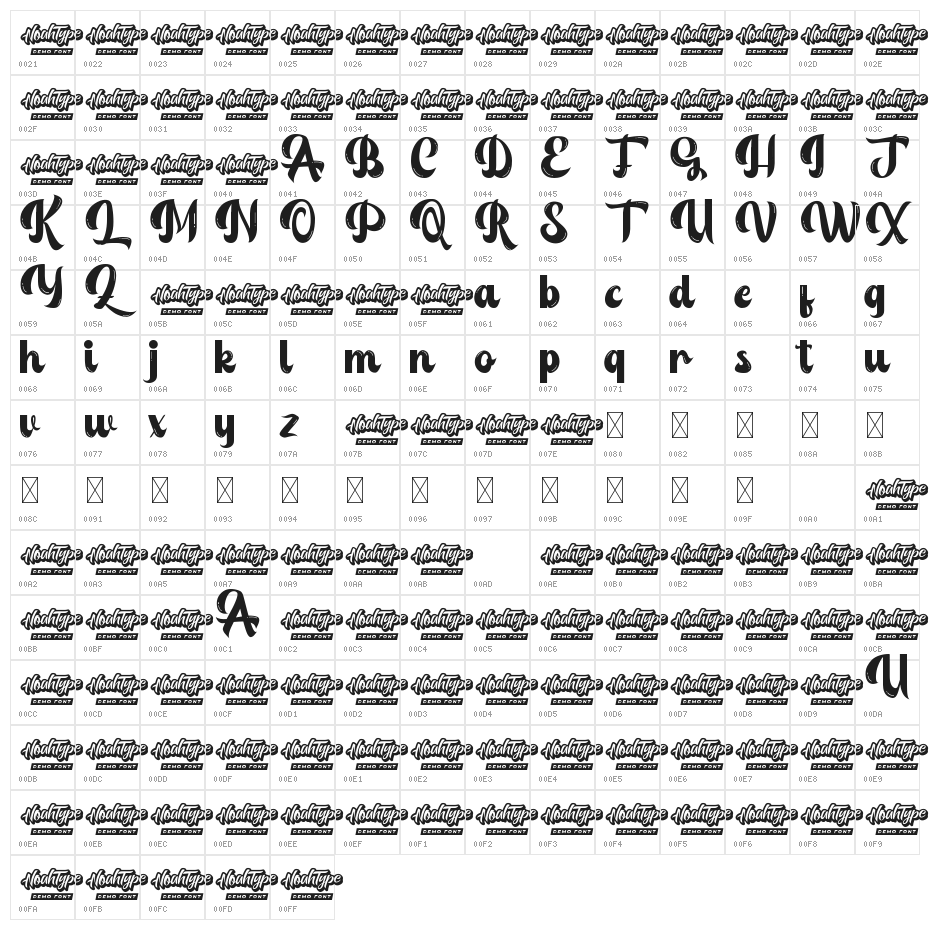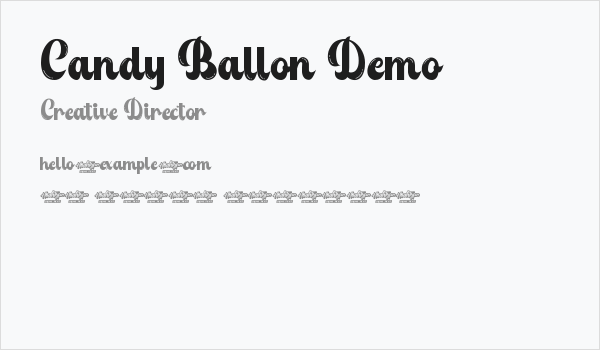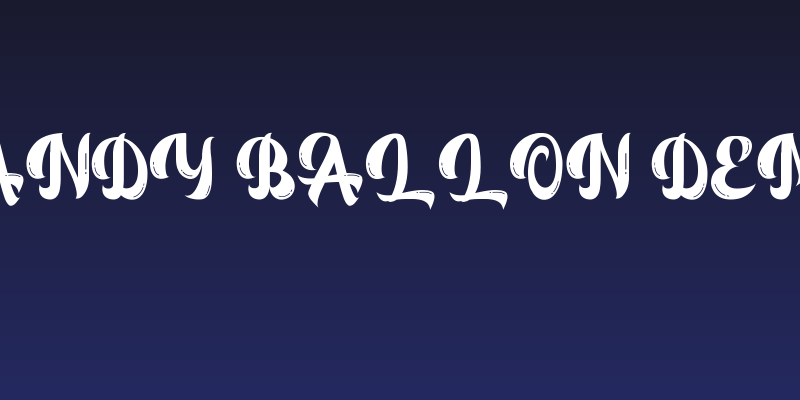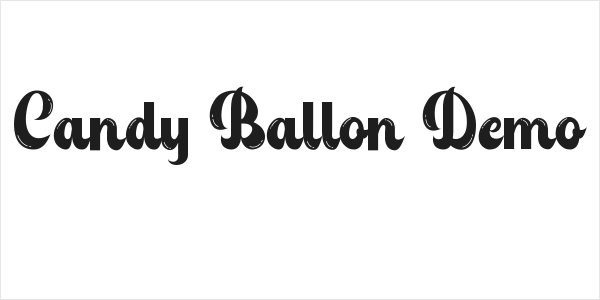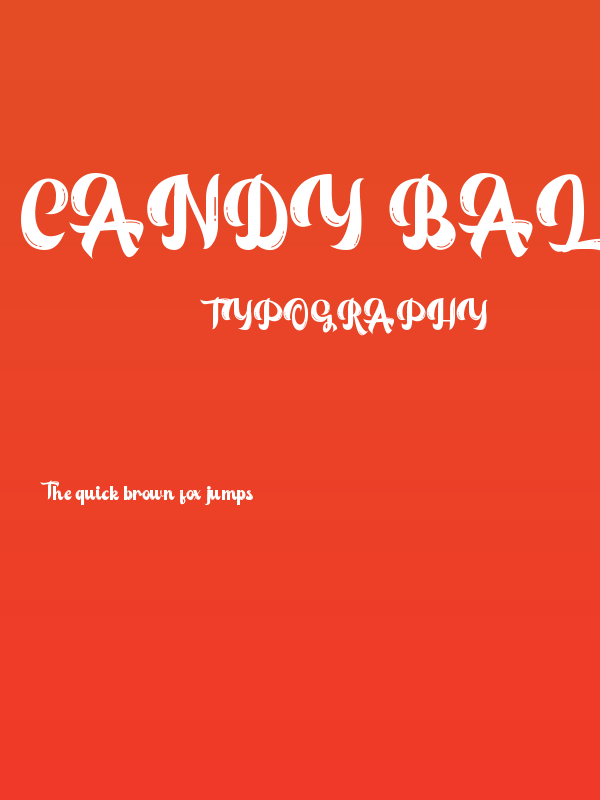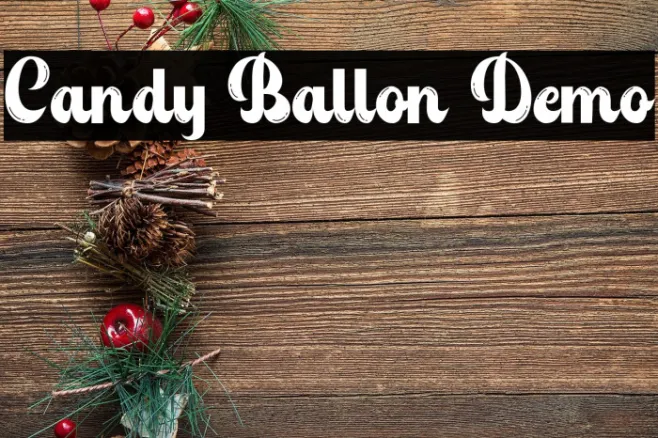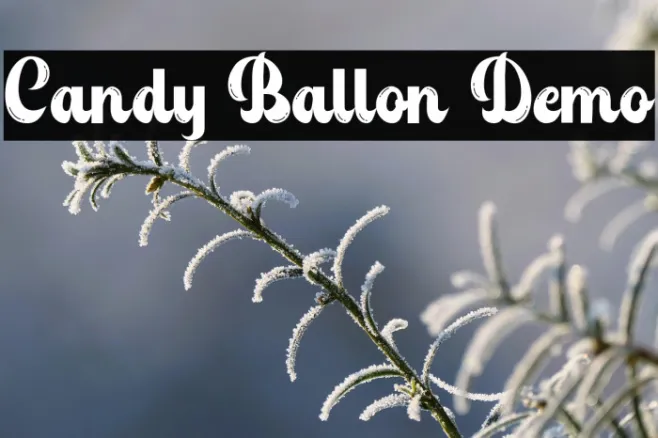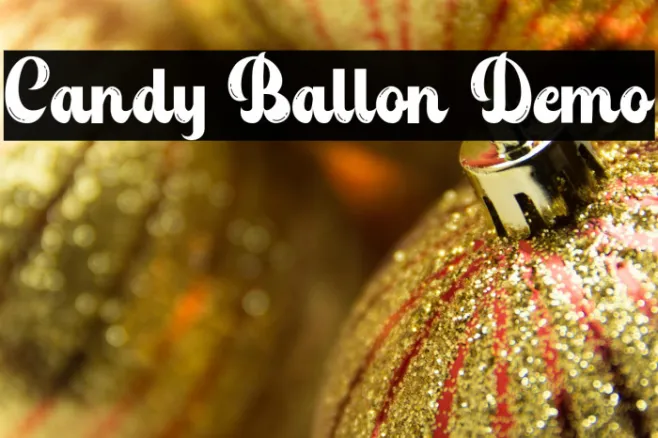
Candy Ballon Demo Font
Candy Ballon Demo Description
This font features a playful and whimsical design, characterized by its bold and rounded letterforms. The uppercase letters have a unique flair with decorative elements that give them a lively appearance. The lowercase letters maintain a consistent style, with smooth curves and a friendly, approachable look. The font's overall aesthetic is reminiscent of a fun, festive atmosphere, making it ideal for projects that require a touch of joy and creativity. The characters are well-spaced, ensuring readability while maintaining their distinctive style.
| Overall Style | Playful, Festive |
| Proposed Projects | Ideal for children's book covers, party invitations, playful branding, and festive posters. |